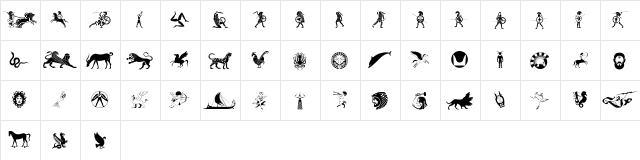
Mythical & Hoplite Noodgies Regular
Design Context for Mythical & Hoplite Noodgies Typeface
Mythical & Hoplite Noodgies is a composed and adaptable typeface that performs quietly and consistently across a wide range of design contexts.